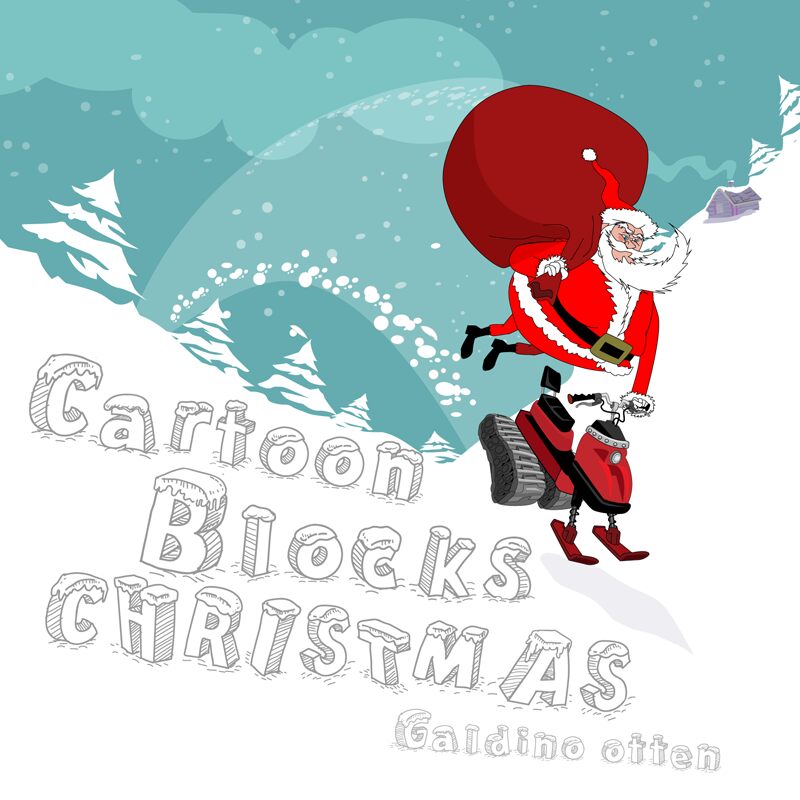
Cartoon Blocks Christmas SC
Cartoon Blocks Christmas by Galdino Otten Fonts captures the joy and whimsy of the holiday season in its playful and bold design. At first glance, the font exudes a cheerful aesthetic with its blocky, cartoonish letters that seem to dance with a festive spirit. The robust weight of each character ensures that messages stand out with an undeniable presence.
The typeface's Christmas style is further accentuated by design elements reminiscent of winter wonderlands and Yuletide cheer. Each letter is adorned with seasonal motifs such as snowflakes, stars, and holly, which make it an excellent choice for any project seeking to convey warmth and holiday excitement.
This font's versatility shines through its suitability for a range of creative projects. Whether it's for greeting cards, party invitations, promotional materials for holiday sales, or festive social media graphics, Cartoon Blocks Christmas adds a touch of merriment that is hard to overlook. Its distinct appearance not only captures attention but also wraps any text in a cozy blanket of Christmas charm.
The typeface's Christmas style is further accentuated by design elements reminiscent of winter wonderlands and Yuletide cheer. Each letter is adorned with seasonal motifs such as snowflakes, stars, and holly, which make it an excellent choice for any project seeking to convey warmth and holiday excitement.
This font's versatility shines through its suitability for a range of creative projects. Whether it's for greeting cards, party invitations, promotional materials for holiday sales, or festive social media graphics, Cartoon Blocks Christmas adds a touch of merriment that is hard to overlook. Its distinct appearance not only captures attention but also wraps any text in a cozy blanket of Christmas charm.